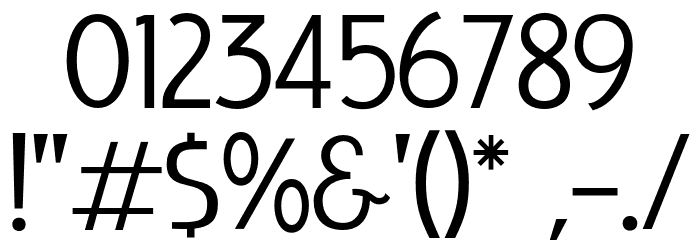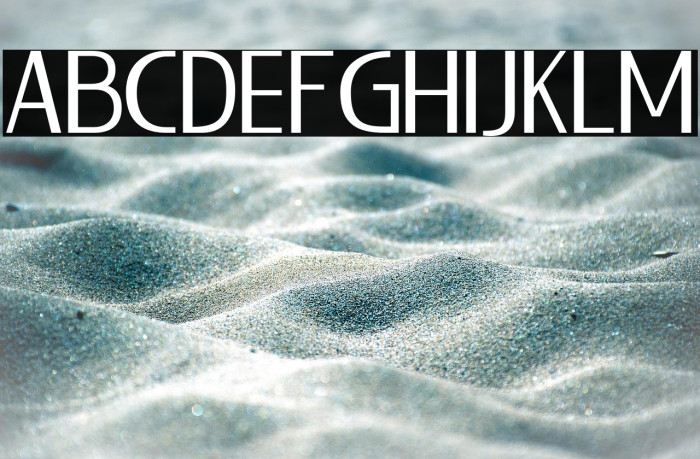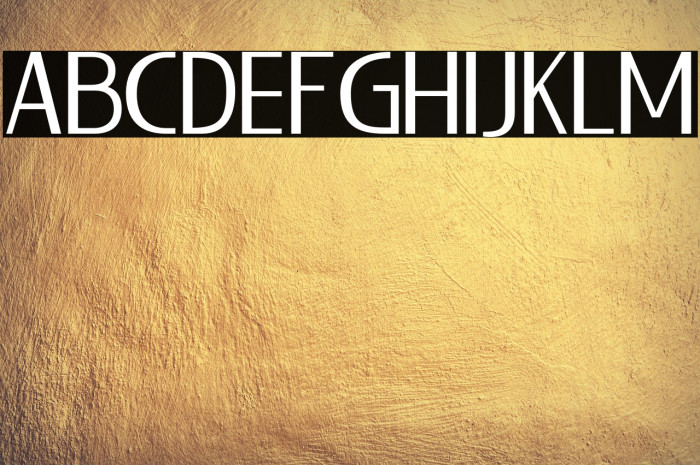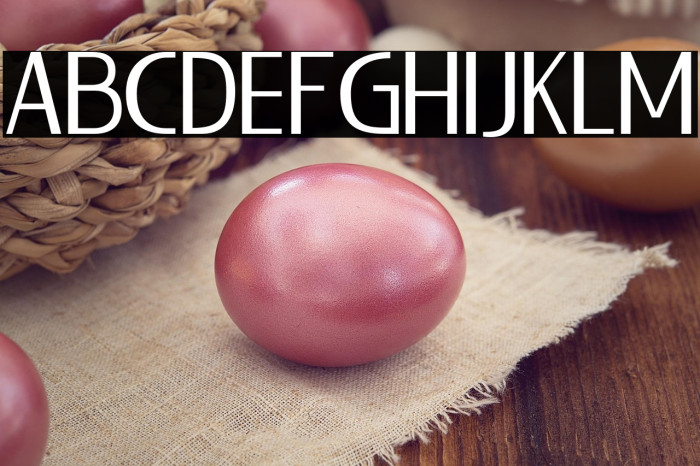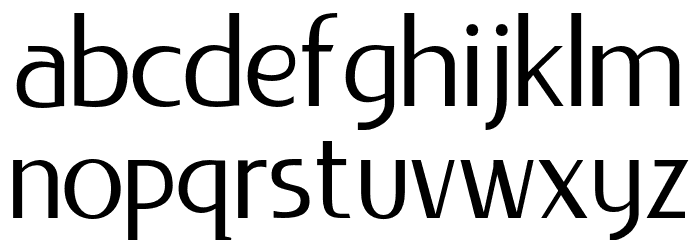
LIEUR-Regular Font
LIEUR-Regular Description
This font features a clean and modern sans-serif design with a balanced structure. The characters are sleek and slightly condensed, offering a contemporary look that is both professional and approachable. The uppercase letters are tall and elegant, while the lowercase letters maintain a consistent flow, enhancing readability. The numerals are clear and distinct, making them suitable for various applications. Special characters are well-defined, adding versatility to the font's use. The overall appearance is sophisticated, making it ideal for modern branding and design projects.